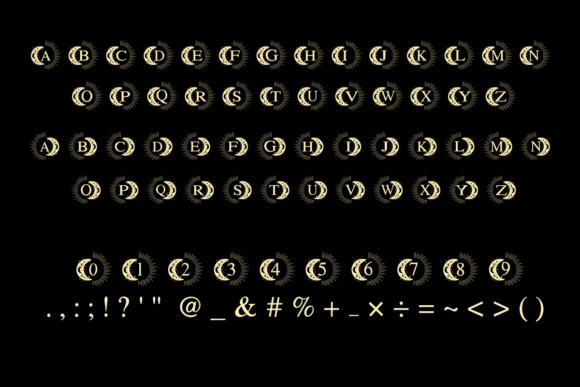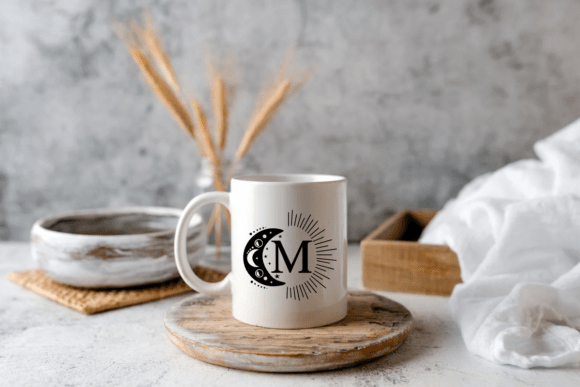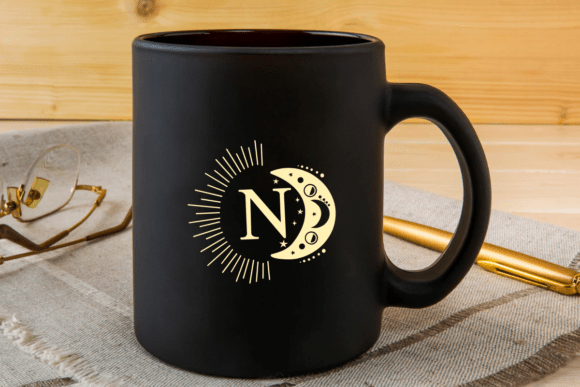
Introduction to Mystic Moon Font
Do you remember the feeling of scribbling down your deepest thoughts and dreams in a sparkly journal as a child? The thrill of creating something magical and unique that was all your own? As adults, we may not have the same luxury of free time, but that creative spark still burns within us. Whether you’re a seasoned designer or a DIY enthusiast, the right design resources can bring that spark to life.
One such resource is the enchanting Mystic Moon Font, a high-quality decorative font that’s perfect for any creative project. With its dreamy, ethereal quality, this font is a must-have for designers looking to add a touch of magic to their designs. From making greeting cards and banners to creating social media posts and merchandise, the Mystic Moon Font is an incredibly versatile design resource that’s sure to inspire.
Key Features of Mystic Moon Font
• Unique Whimsical Design: The Mystic Moon Font features a mystical and dreamy design, perfect for creative projects that require a touch of magic and wonder.
• Perfect for Fantasy and Whimsy Projects: The Mystic Moon Font is particularly well-suited for fantasy and whimsy-themed projects, such as children’s books, fantasy novels, and role-playing games.
Honest Review: Mystic Moon Font
I recently had the opportunity to work with the Mystic Moon Font, and I must say, it’s been a game-changer for my creative projects. The font is a great addition to any design resource, offering a unique and mystical vibe that’s perfect for anything from fantasy novels to cosmic-themed websites.
• ✨ High-quality design that looks amazing in both small and large text sizes.
• ⚠️ Limited character set, which can be a bit restrictive for longer texts.
• ⚠️ May not be suitable for straightforward, modern designs – it’s best for projects with a more whimsical or mystical theme.
Overall, I’m really impressed with the Mystic Moon Font. It’s a unique and versatile design resource that’s sure to add some magic to your next creative project. While it may have some limitations, I think it’s well worth the free download – and I’m excited to see how I can use it in my future designs.
How to Use Mystic Moon Font
Some tips for getting the most out of Mystic Moon Font include:
• Experiment with different font sizes and colors.
• Use Mystic Moon Font for headings or titles.
• Combine with other design elements for a unique look.
Common use cases for Mystic Moon Font include:
• Wedding invitations or stationery.
• Brand logos or marketing materials.
• Photography or art projects.